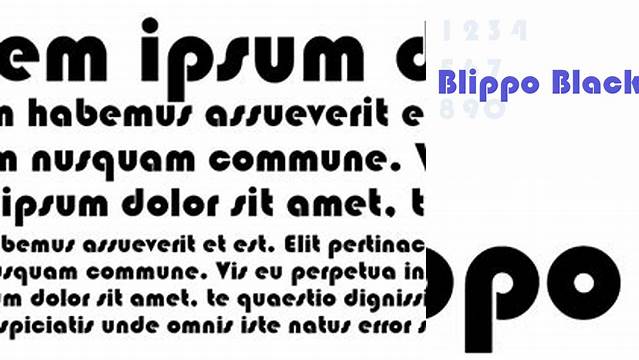
Hey everyone! Are you looking to spice up your designs with a fun, quirky font? Well, look no further! Today, we're diving into the world of the Blippo Regular font, and guess what? You can get a free download! Yeah, you heard that right! This font is perfect for adding a playful touch to your projects, whether you're working on a poster, a website, or just a fun personal project. Let's get into the details, shall we?
H2: What Makes Blippo Regular Font So Special?
Okay, guys, let's talk about what makes Blippo Regular so darn special. This font isn't your run-of-the-mill, boring typeface. Nope! It's got a unique, rounded design that screams fun and friendliness. Think of it as the bubbly, energetic friend in your font collection. The Blippo Regular font is characterized by its distinct, almost cartoonish appearance. Its rounded letterforms give it a soft, approachable feel, making it ideal for projects aimed at younger audiences or those that want to convey a sense of playfulness and creativity. The design of the Blippo Regular font is a testament to its unique aesthetic; the curves and subtle variations in the width of the strokes contribute to its friendly and memorable appearance. This makes it a great choice for headlines, logos, and other design elements where you want to make a bold, yet welcoming statement. In essence, the Blippo Regular font is all about standing out from the crowd. Its unique design helps it to capture attention and deliver a memorable impression, making your design project more engaging and exciting. It's a font that adds personality and charm, creating a sense of joy and creativity that will set your work apart.
One of the best features of Blippo Regular, besides its awesome look, is its versatility. It's not just for one type of project. You can use it in a whole bunch of ways! Need a cool headline for a website? Blippo Regular. Creating a fun poster for an event? Blippo Regular. Designing a logo that needs to be memorable and approachable? You guessed it, Blippo Regular! It's this adaptability that makes it such a popular choice among designers. Its distinctive design gives it an advantage over standard fonts, as it helps to instantly grab the viewers’ attention, which is critical in a world full of visual stimuli. It's the kind of font that complements other design elements, allowing you to build a cohesive and eye-catching design. The font is not too distracting, so your message remains clear. Plus, the rounded letters add an extra touch of friendliness that you don't often get with other typefaces. So, whether you're designing for print or digital media, Blippo Regular is ready to help you make a statement.
H2: Blippo Regular Font's Usage in Design Projects
Now, let's explore some cool ways you can use the Blippo Regular font in your design projects. This font is perfect for a variety of uses, especially when you want to bring a touch of fun and creativity to your work. One of the most popular uses for Blippo Regular is in designing logos. Its unique, rounded appearance makes it highly memorable and stands out from the crowd. Think about brands like toy companies or businesses that target a younger audience – the font can instantly create a friendly and approachable image. The font's playful style also works incredibly well for headlines and titles. In a world filled with information, the font’s ability to grab attention and make a statement is priceless. Using Blippo Regular for headings can instantly make your content more engaging and visually appealing. This makes your content more memorable. It's also a great choice for creating engaging content. It can be used in posters, flyers, and social media graphics to grab the attention of viewers, especially for events or promotions aimed at attracting an audience. The font’s friendly appearance can make your designs more inviting. The versatility of Blippo Regular allows you to integrate it into your work seamlessly. By using the font, you can enhance the overall impact of your designs.
H2: Key Features of the Blippo Regular Font
Let's get into the nitty-gritty of what makes the Blippo Regular font so special. This font boasts a set of features that set it apart and make it a popular choice among designers. First, there's the design, the rounded and friendly letterforms. This distinctive feature gives the font a warm, inviting feel. This makes the font suitable for a wide variety of projects, particularly those aimed at younger audiences or projects that require a playful and approachable aesthetic. Another standout feature is its excellent readability. Despite its unique design, the Blippo Regular font remains easy to read, even in smaller sizes. This is crucial for any font used in designs where the text needs to be clear and understandable. The versatility of the Blippo Regular font is another key feature. It's not limited to any specific type of project. You can use it in a variety of designs, from websites and logos to posters and social media graphics. This flexibility makes it a valuable asset for any designer's toolkit. The Blippo Regular font usually comes with a complete character set, including all the letters, numbers, and special characters. This comprehensive character set ensures that you have everything you need to create complete and professional designs. Furthermore, the font often includes multiple weights and styles, such as bold or italic versions, which gives you even more design options. By understanding these key features, you will have a greater appreciation of how the Blippo Regular font can enhance your design projects.
H2: Blippo Regular Font vs. Other Fonts: A Comparison
Let's see how the Blippo Regular font stacks up against other popular fonts in the design world. When you compare Blippo Regular to more traditional fonts like Arial or Times New Roman, the difference is immediately clear. These standard fonts are designed for clarity and readability, with a more neutral and formal appearance. Blippo Regular, on the other hand, has a much more distinctive look. It's rounded letterforms and playful style make it stand out, making it a great choice when you want to create a design that catches the eye and makes a statement. In comparison to other quirky fonts, such as Comic Sans or Lobster, the Blippo Regular font offers a balance between fun and readability. While Comic Sans is often criticized for being too casual, Blippo Regular maintains a professional edge, making it suitable for a wider range of applications. The difference between the font and the Lobster font is that Lobster is more elegant and refined. Blippo Regular's versatility also makes it stand out against these fonts. It can be adapted to different design projects. It's great for anything from logos to headlines. While other fonts have specific uses, the Blippo Regular font can be the most appropriate option to give a unique and engaging impression.
H3: Font Characteristics: Blippo vs. Arial
Arial is a clean, sans-serif font, known for its neutrality and readability. It's a workhorse font, perfect for body text where clarity is key. However, it lacks the character and personality of Blippo Regular. Blippo Regular, with its rounded forms and playful style, is designed to grab attention. It is the perfect choice to create a memorable impression in your design projects. While Arial excels at conveying information in a straightforward manner, Blippo Regular excels at making your design stand out from the crowd. When choosing between these two fonts, consider your audience and the message you want to convey. If your design needs to be fun and friendly, Blippo Regular is the way to go. If you need to convey information in a clear and straightforward way, Arial might be a better choice.
H3: Font Characteristics: Blippo vs. Times New Roman
Times New Roman is a classic serif font, known for its elegance and formality. It's a great option for printed materials and projects that require a traditional feel. It is more suited for a serious tone. However, it lacks the playfulness of Blippo Regular. Blippo Regular's rounded design and friendly style create a more approachable and inviting look. When choosing between these two fonts, think about your project's tone and target audience. If you want to add a touch of sophistication and formality, Times New Roman is a great option. If you want to bring a sense of fun and creativity, Blippo Regular is the winner. The font's versatility makes it ideal for various design needs. The design features of Blippo Regular can make your project more engaging.
H3: Font Characteristics: Blippo vs. Comic Sans
Comic Sans is often criticized, but it has a place in design history. It is known for its casual and friendly style, making it popular for projects targeting children. Comic Sans is perfect for adding a touch of playfulness, but it lacks the versatility and professional look of Blippo Regular. Blippo Regular balances fun and readability. Blippo Regular is versatile. It is perfect for designs that require a professional look. When choosing between these two fonts, keep in mind your project's needs and target audience. If you are designing something for children, Comic Sans might be a great option. If you want something fun and versatile, Blippo Regular is the best option. Blippo Regular provides a balance between visual appeal and professionalism.